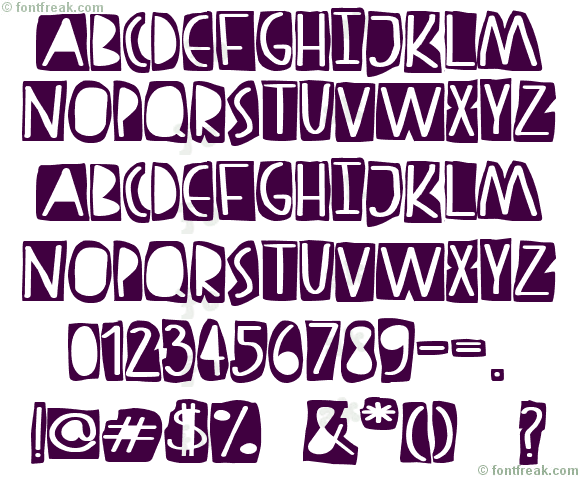
Tarraco Nacional
About Tarraco Nacional
The Tarraco Nacional font, designed by woodcutter Manero, is a striking display typeface that captivates with its unique character. This font falls into the decorative category, showcasing an artistic flair that makes it ideal for eye-catching designs. The visual characteristics of Tarraco Nacional are marked by its playful stroke weight and whimsical shapes, which offer a balanced contrast that catches the eye without overwhelming the viewer. The spacing is thoughtfully crafted, allowing for clarity while maintaining a lively rhythm throughout the text.
Tarraco Nacional is versatile and can be used in a variety of creative applications. Its distinct style makes it perfect for wedding invitations, where a personal touch is essential. It is also well-suited for movie posters, allowing filmmakers to convey their film's theme with visual flair. Restaurant menus can benefit from this font as it adds a touch of creativity that can enhance the dining experience. Additionally, it works wonderfully for branding purposes, giving small businesses a unique identity that stands out in a crowded market. Content creators will find this font useful for digital graphics, providing an engaging element to social media posts and website designs.
The target audience for Tarraco Nacional includes graphic designers, small business owners, and content creators looking for a font that can enhance their visual projects. Its freeware license makes it an accessible choice for those on a budget while still desiring high-quality typography.
In conclusion, the Tarraco Nacional font stands out due to its playful and artistic design, making it an excellent choice for anyone looking to add a unique touch to their projects. With its distinct characteristics and versatility, the Tarraco Nacional font free download is a must-have for creative professionals aiming to elevate their work.